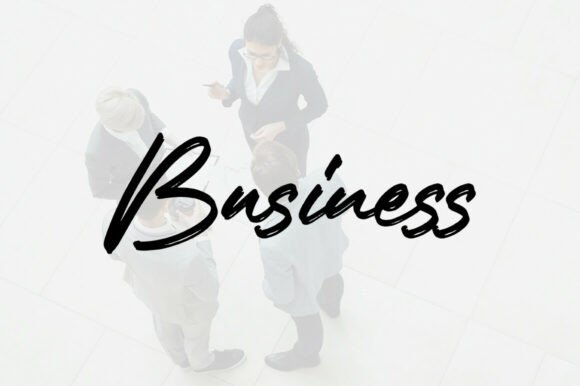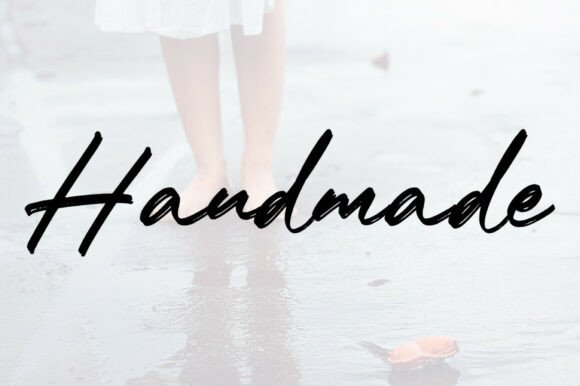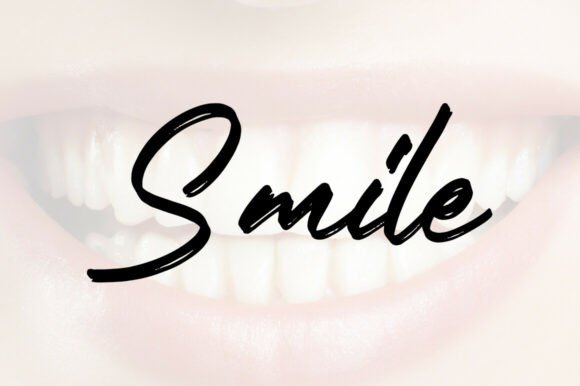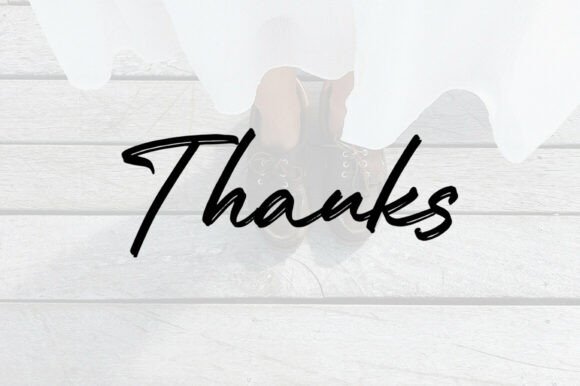
Introducing Handwork Font: The Sweet and Cursive Handwritten Font for Your Design Needs
Are you a designer or crafter looking for a font that can add a touch of elegance and whimsy to your projects? Look no further than Handwork Font, a sweet and cursive handwritten font that is perfect for a variety of design ideas. With its gentle and flowing curves, Handwork Font is sure to bring a joyful and romantic touch to each of your projects.
What Makes Handwork Font Special?
Handwork Font is a unique and versatile font that can be used for a wide range of design applications. Whether you’re creating a brand identity, designing a logo, or crafting a wedding invitation, Handwork Font is the perfect choice. Its cursive and handwritten style gives it a personal and human touch, making it perfect for designs that require a more personal and emotive feel.
One of the standout features of Handwork Font is its ability to add a touch of elegance and sophistication to any design. Its flowing curves and gentle lines make it perfect for designs that require a more refined and polished look. At the same time, Handwork Font is still casual and approachable, making it perfect for designs that require a more relaxed and friendly feel.
Handwork Font is a versatile font that can be used for a wide range of design applications. Here are just a few ideas to get you started:
- Branding: Use Handwork Font to create a unique and memorable brand identity that sets you apart from the competition.
- Logo Design: Create a stunning logo that showcases your brand’s personality and style with Handwork Font.
- Wedding Design: Add a touch of romance and elegance to your wedding designs, including invitations, programs, and more.
- Greeting Cards: Create beautiful and heartfelt greeting cards for any occasion with Handwork Font.
- Fashion: Use Handwork Font to create stunning fashion designs, including lookbooks, marketing materials, and more.
Why Choose Handwork Font?
So why choose Handwork Font for your design needs? Here are just a few reasons:
- Unique and Versatile: Handwork Font is a one-of-a-kind font that can be used for a wide range of design applications.
- Elegant and Whimsical: Handwork Font adds a touch of elegance and whimsy to any design, making it perfect for designs that require a more refined and polished look.
- Easy to Read: Handwork Font is easy to read and understand, making it perfect for designs that require a clear and concise message.
- Customizable: Handwork Font can be customized to fit your design needs, including adjusting the size, color, and style.
Tips for Using Handwork Font
Here are a few tips for using Handwork Font in your designs:
- Use it sparingly: Handwork Font is a bold and eye-catching font, so use it sparingly to avoid overwhelming your design.
- Pair it with other fonts: Handwork Font pairs well with other fonts, including serif and sans-serif fonts.
- Experiment with colors: Handwork Font looks great in a variety of colors, so experiment with different colors to find the one that works best for your design.
In conclusion, Handwork Font is a sweet and cursive handwritten font that is perfect for a variety of design applications. Its elegant and whimsical style makes it perfect for designs that require a more refined and polished look, while its casual and approachable feel makes it perfect for designs that require a more relaxed and friendly feel. Whether you’re a designer or crafter, Handwork Font is a great choice for any project.